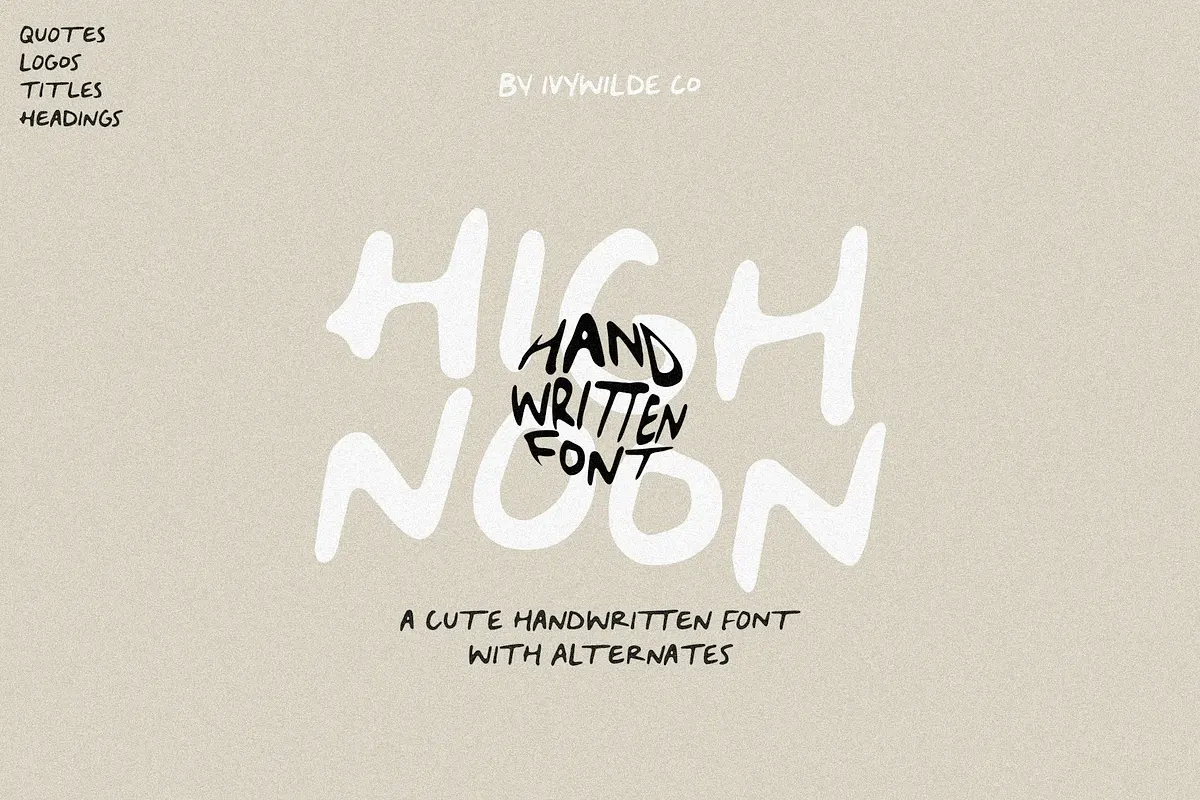
Add a playful and warm touch to your designs with High Noon Cute Handwritten Font Free Download. This charming handwritten font features whimsical, friendly letterforms that make it perfect for projects like invitations, greeting cards, social media posts, and branding for fun, personal, or creative projects.
High Noon combines smooth, flowing strokes with a casual, organic style, giving your typography a light and approachable feel. It includes uppercase and lowercase letters, numerals, punctuation, and multilingual support, providing versatility for a wide range of creative layouts.